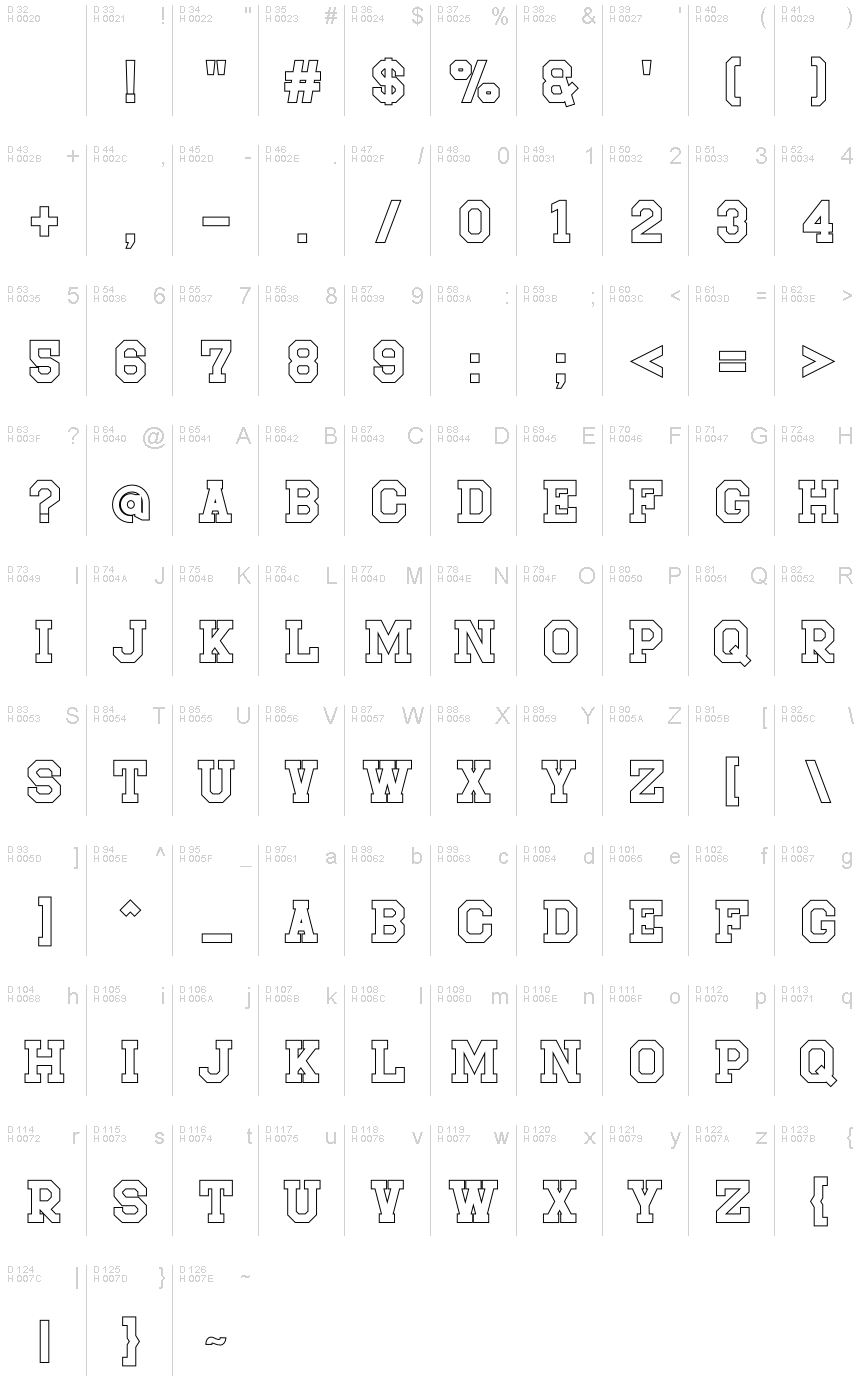
Sportfield Varsity Outline 1
Sportfield Varsity Outline 1 font by Rvandtype features a retro slab serif style inspired by athletic and collegiate designs. Its structured design, clear lines, measured angles and precise rounding gives it a strong presence along with its outlined old-school concept. The display typeface will easily remind the viewers of classic movies that give off a nostalgic vintage feel.
Free for personal use only, Sportfield Varsity Outline 1 comes as an excellent choice for posters, album covers, video games covers and packaging projects. It’s also suitable for branding ideas of clothes character-driven labels such as jackets, t-shirts or even accessories.